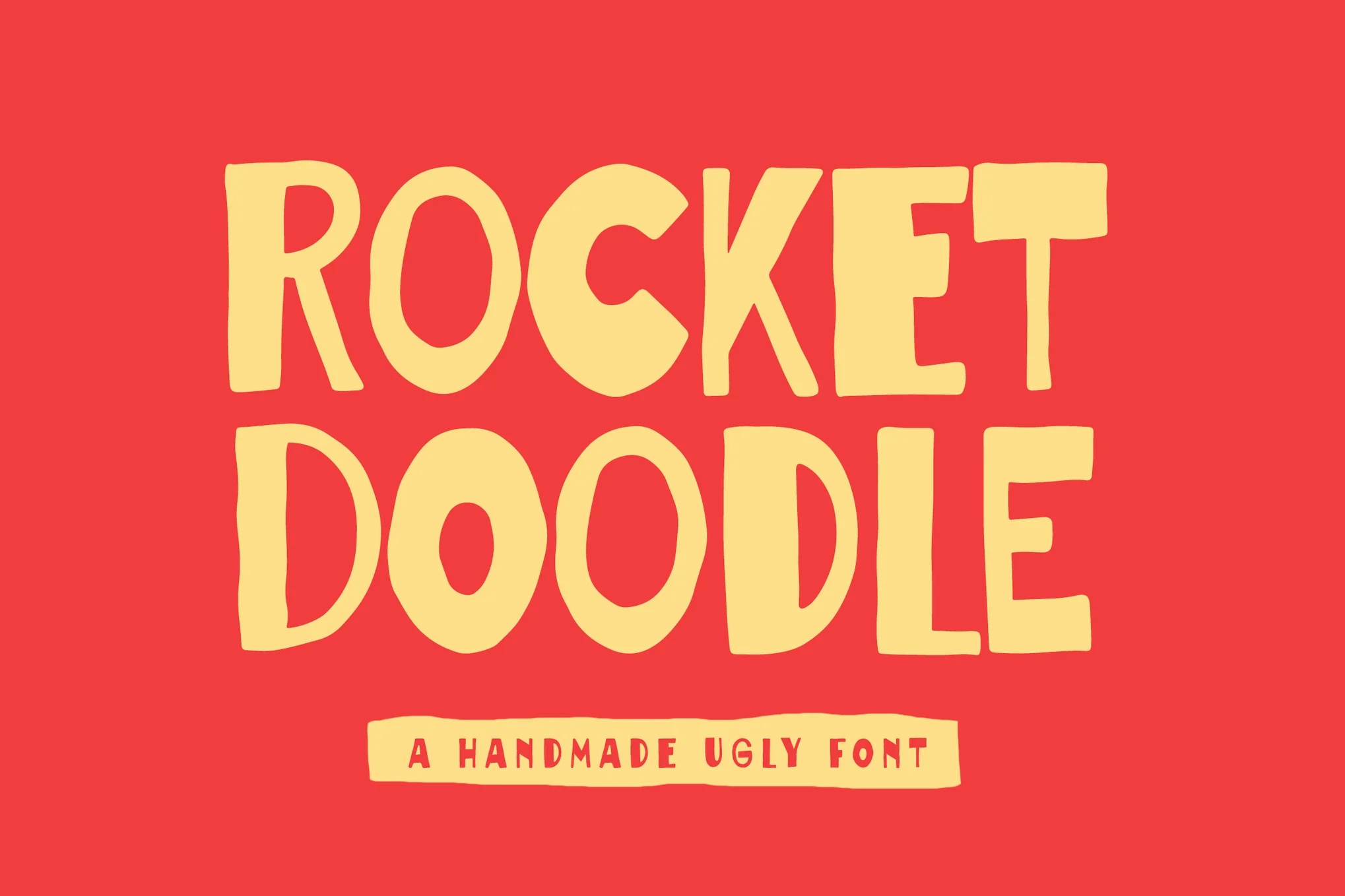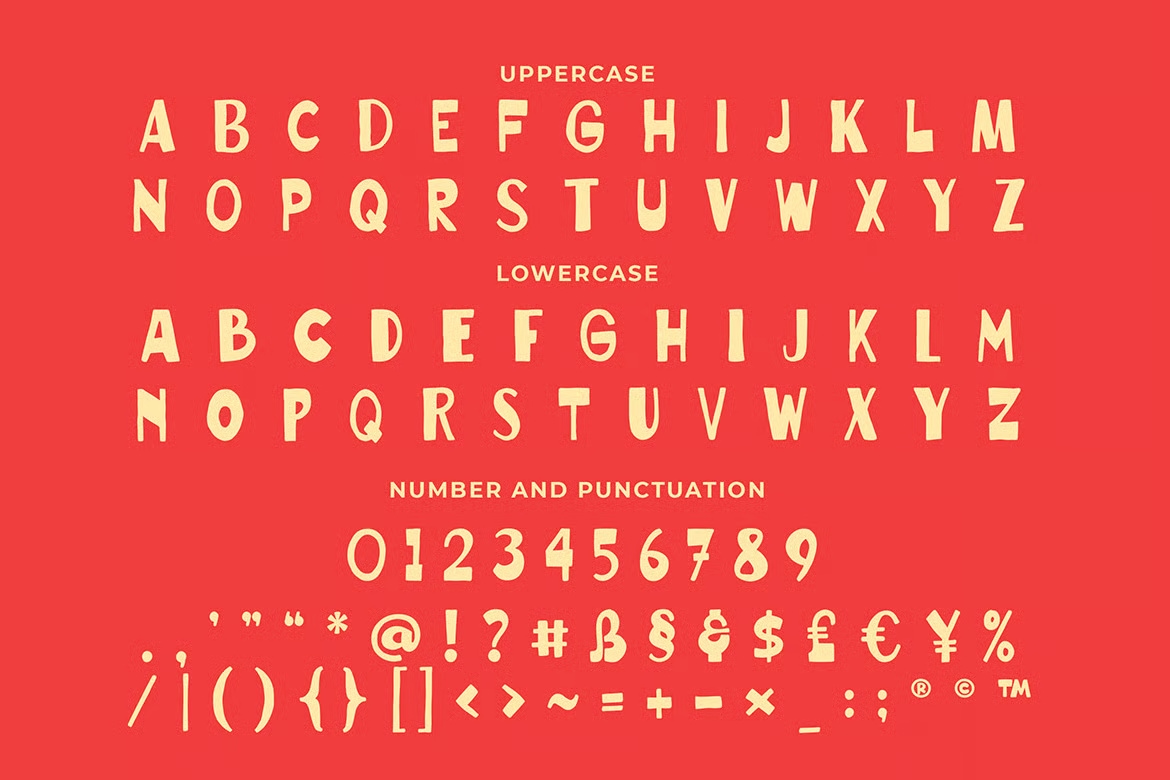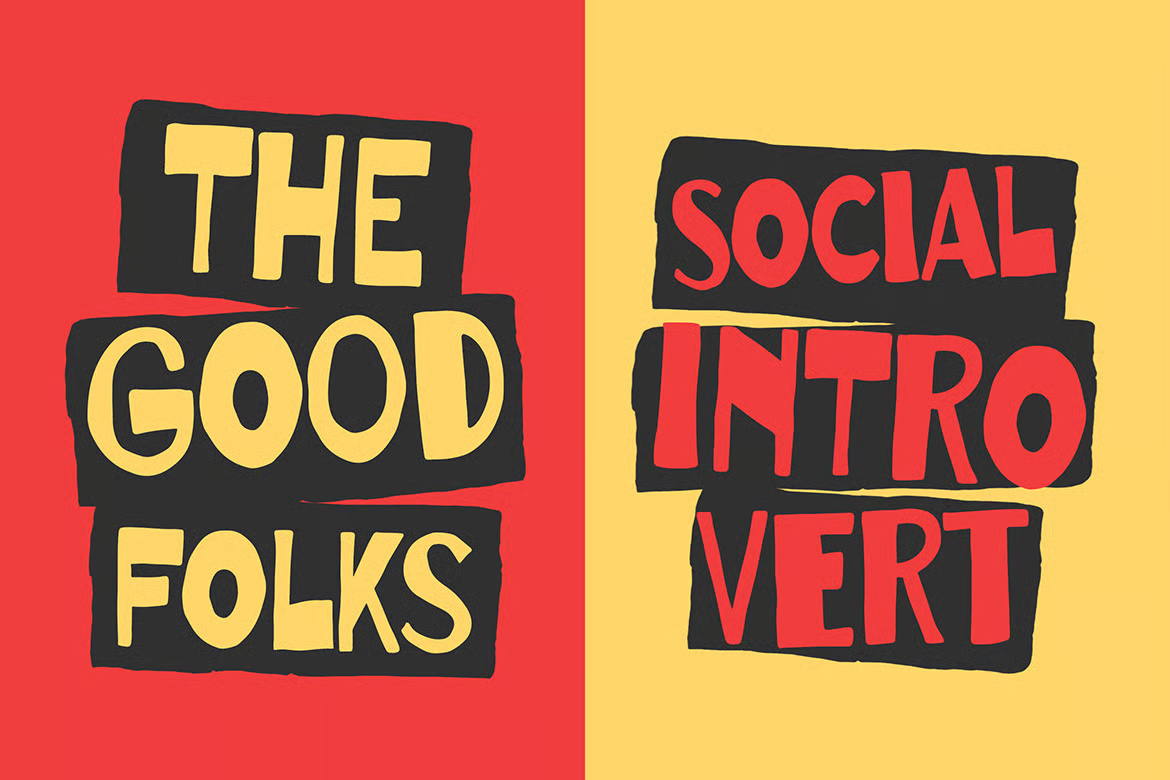
Rocket Doodle a Handwriting Ugly Font
Rocket Doodle is a quirky, intentionally messy handwritten font designed to bring raw personality to your creative projects. Perfect for logotypes, posters, packaging, watermarks, and promotional materials, this font embraces an unapologetically “ugly” style with bold strokes and imperfect letterforms that stand out from the crowd.
It includes a full set of uppercase and lowercase characters, numbers, and punctuation — available in both OTF and TTF formats.